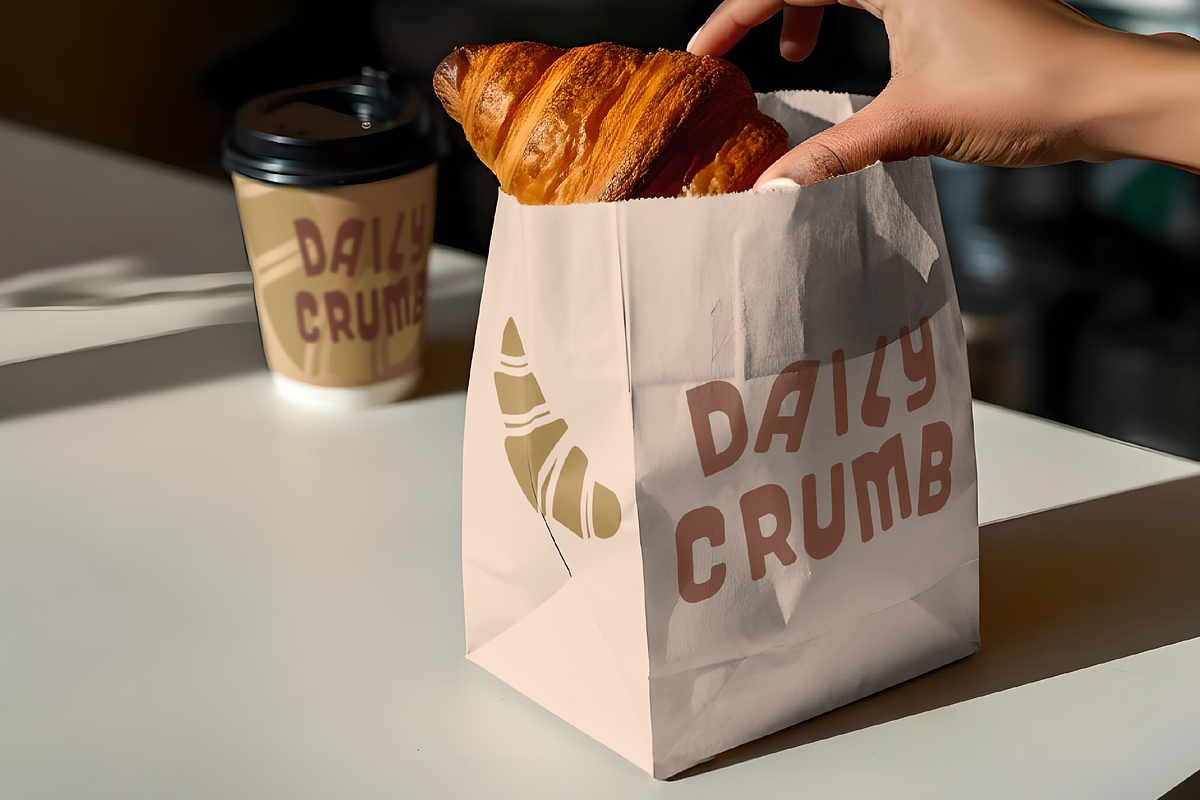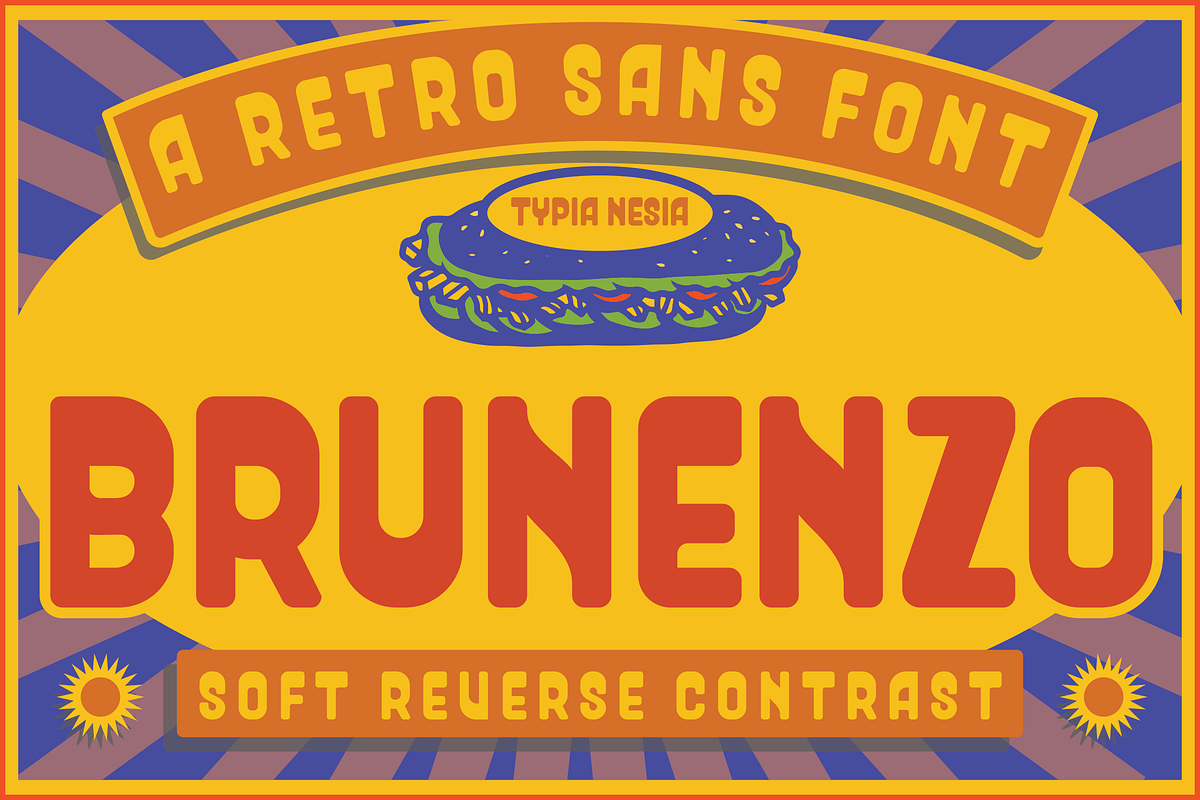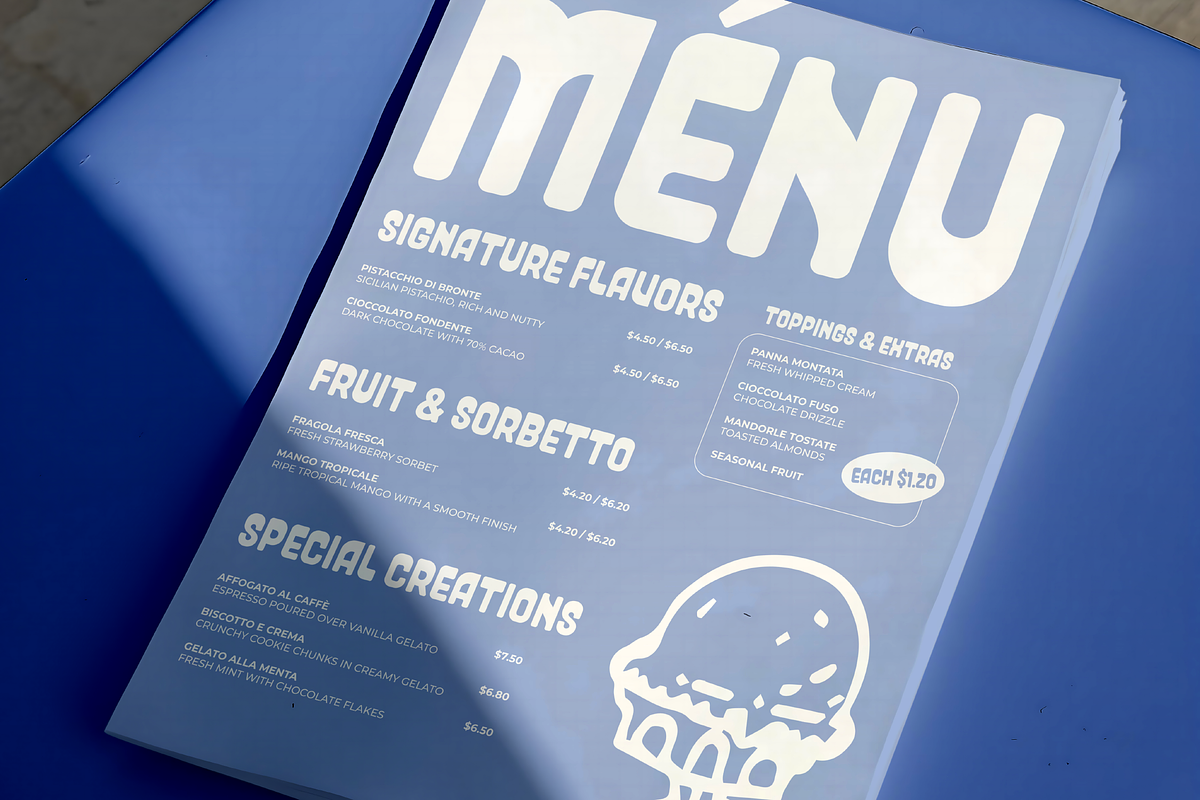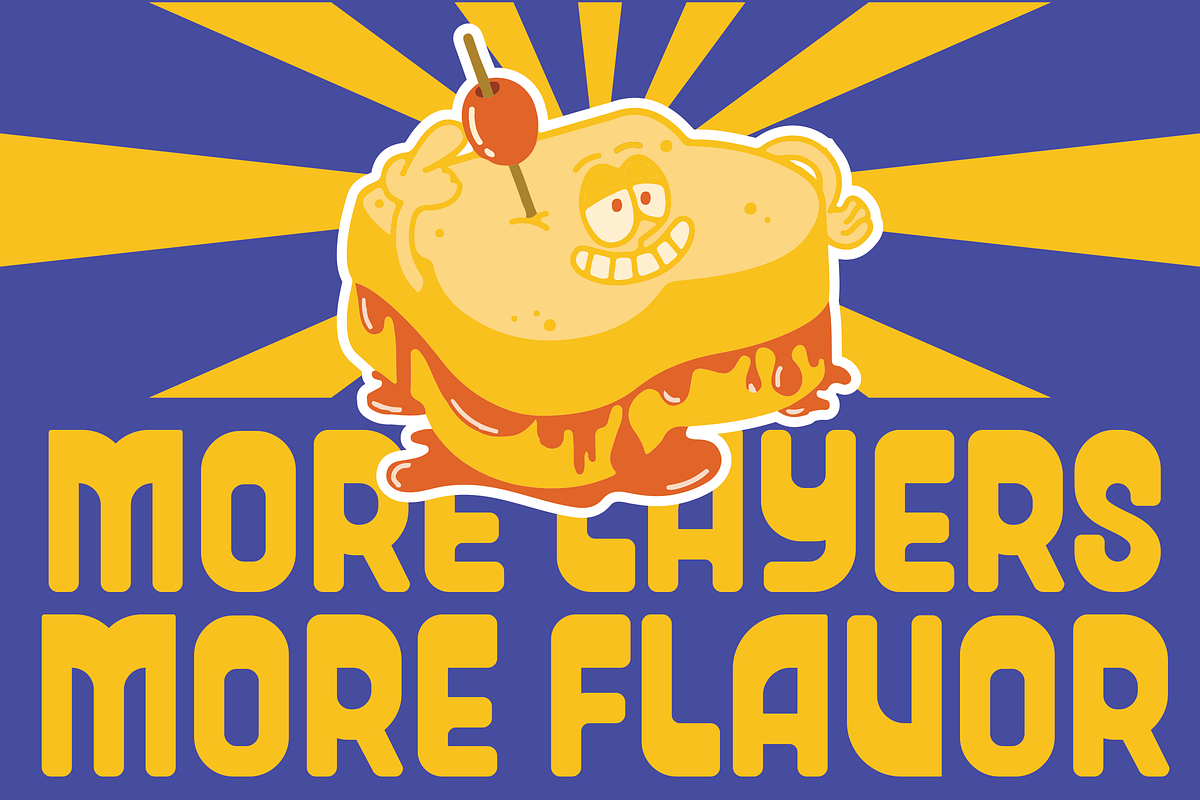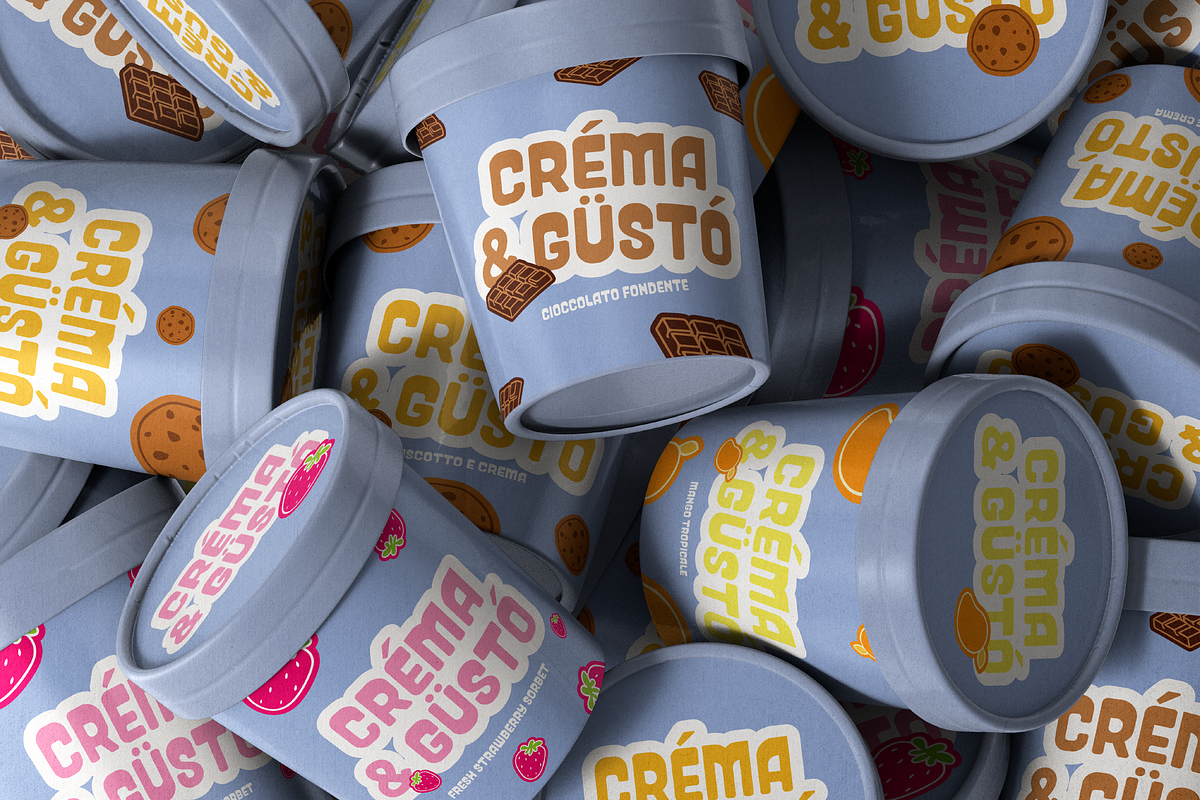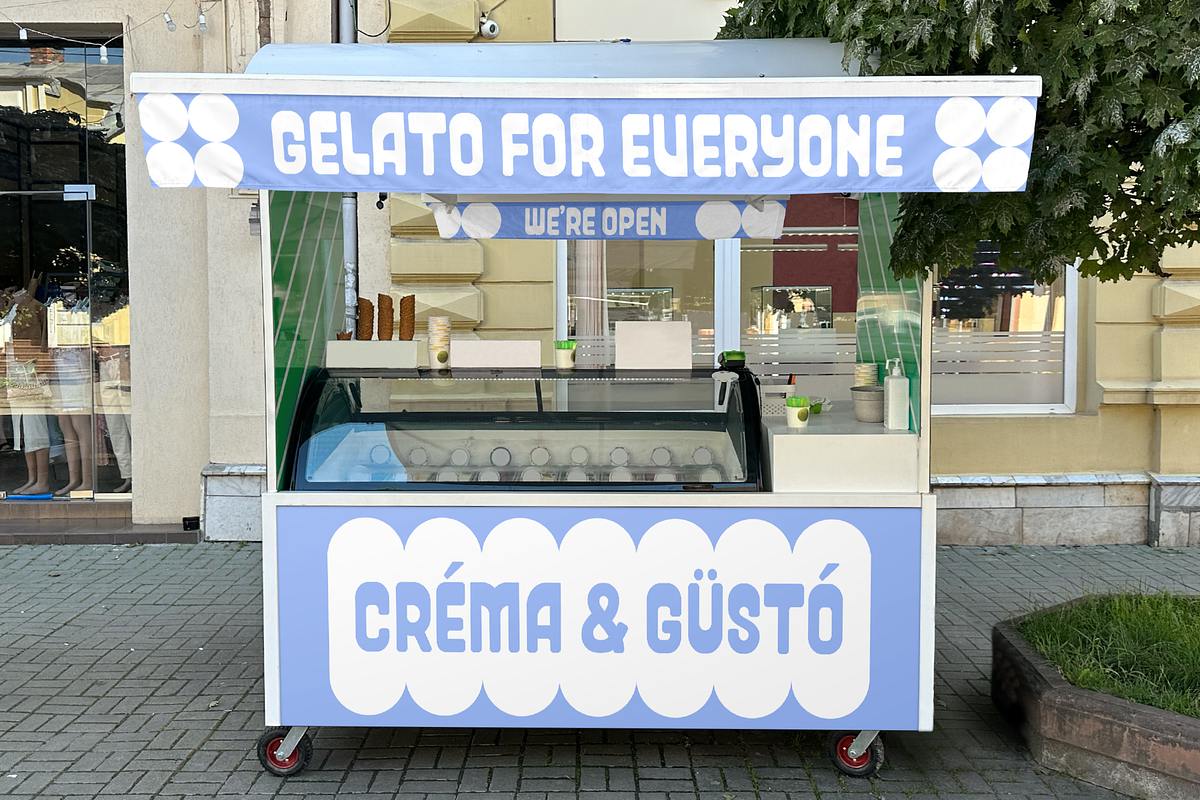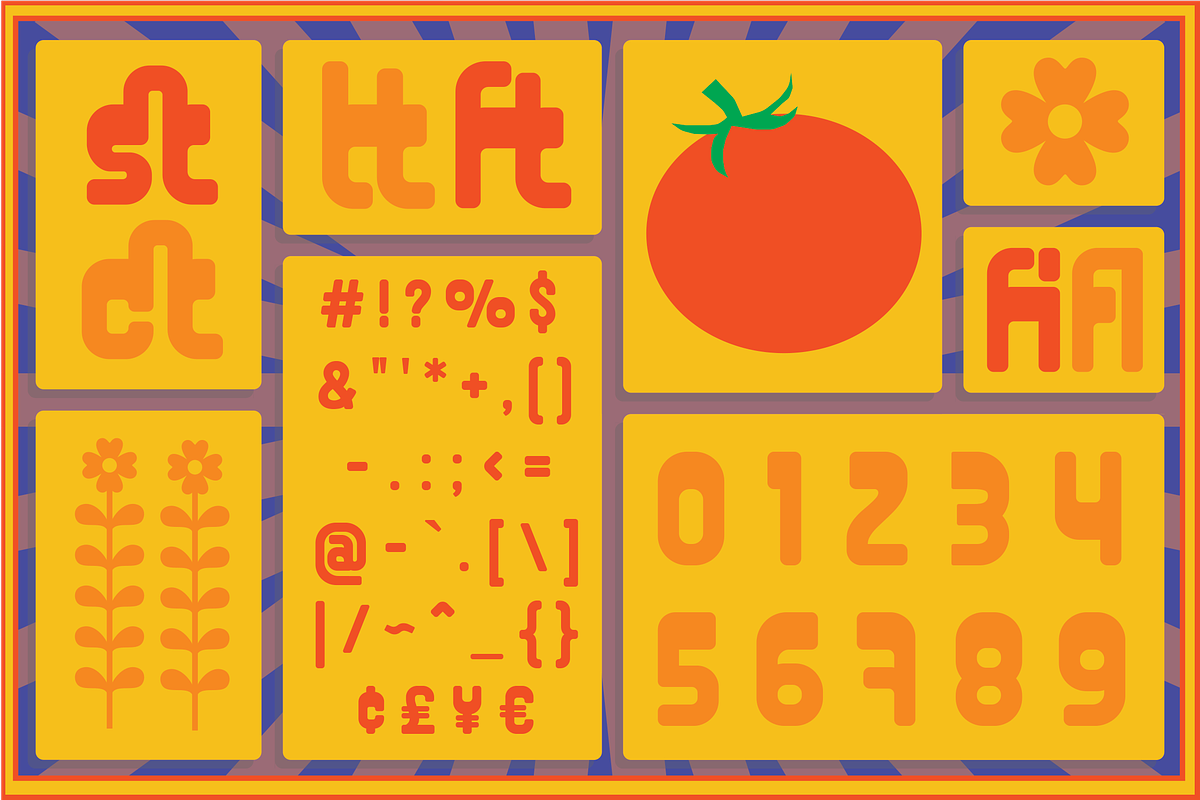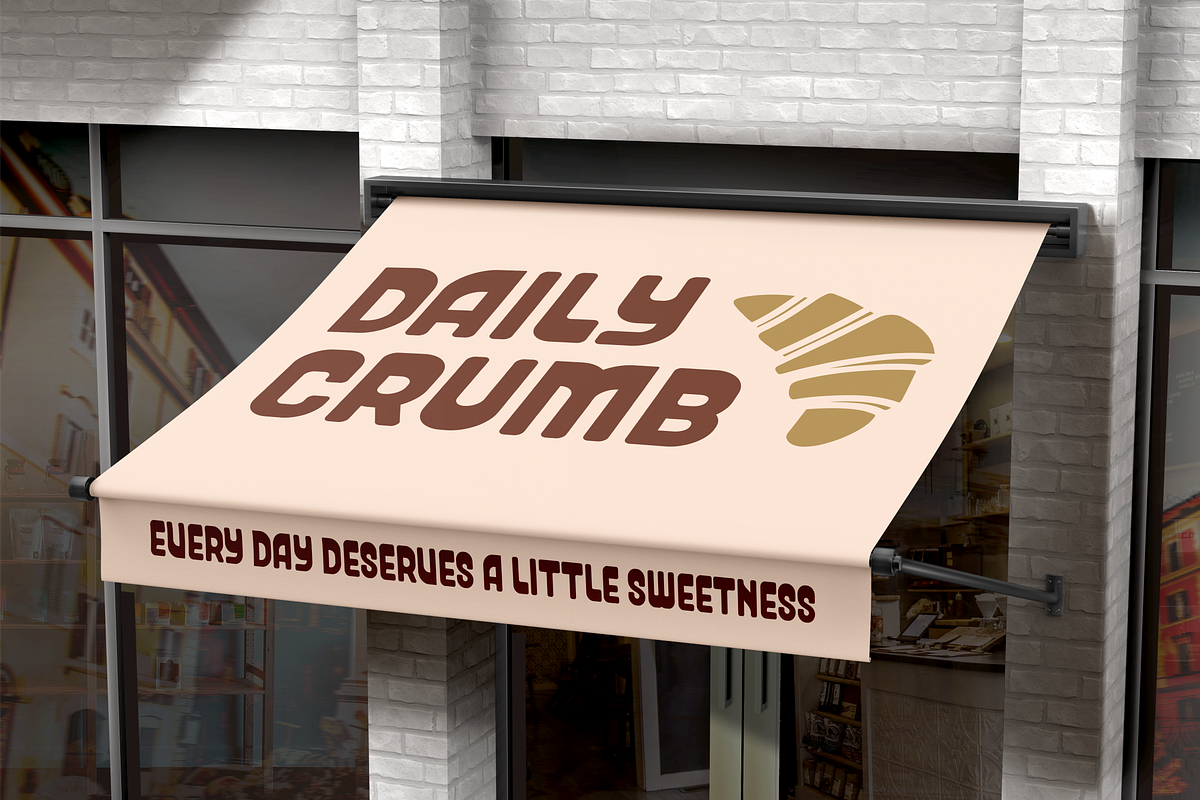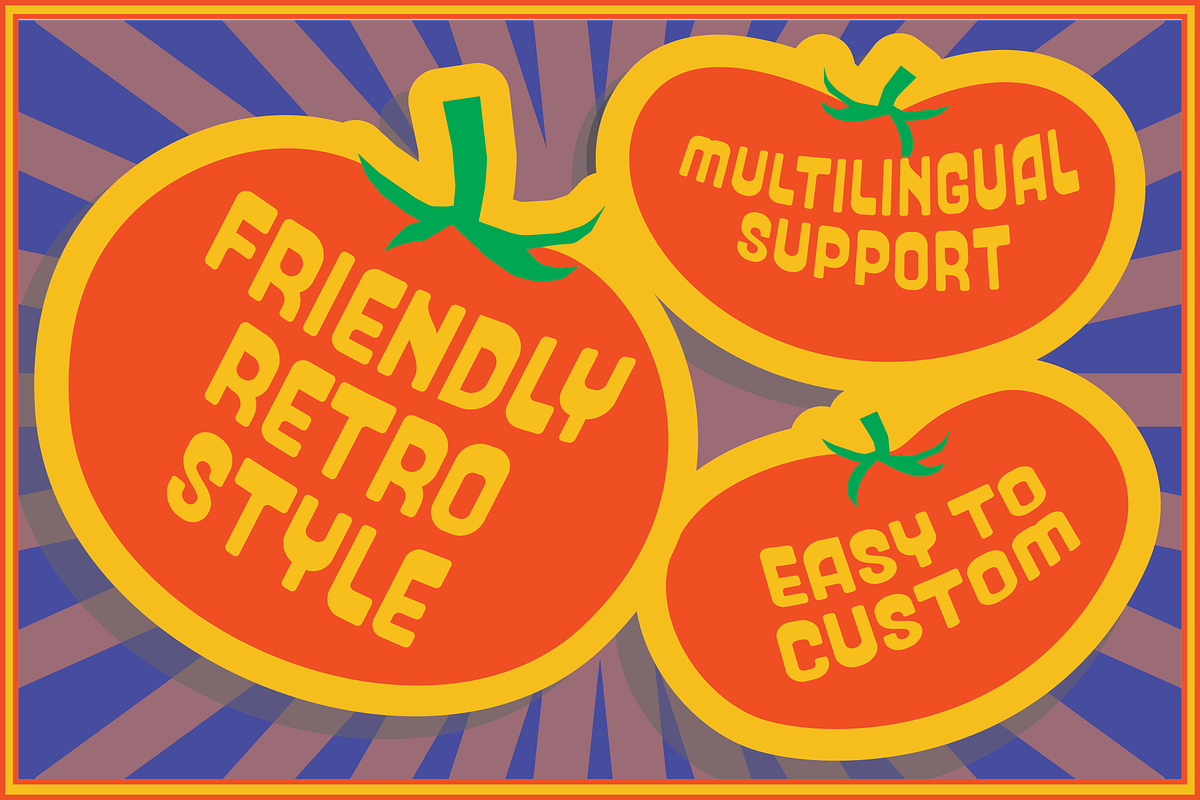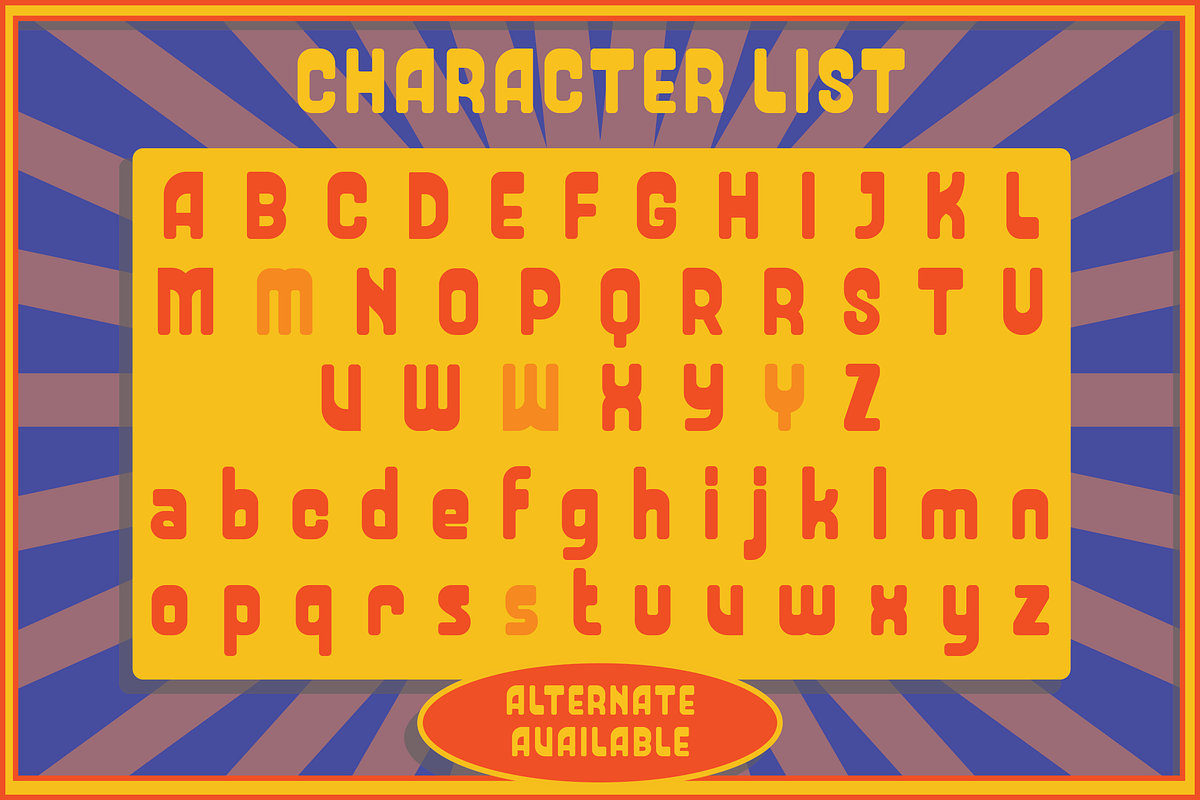
Brunenzo - Classic Retro Condensed
Brunenzo - Classic Retro Condensed Roudend Sans Font - Reverse Contrast Logo Display Font
Brunenzo is a Classic Retro Condensed Rounded Sans Font that captures the bold and playful groovy aesthetic of the 70s. With its distinct soft reverse contrast and chunky, rounded letterforms, this tall and condensed typeface is perfect for eye-catching display use. It's an ideal choice for branding, packaging, poster design, logos, bringing a fun, vintage vibe to projects in the food, game, cafe, and bakery industries and any projects that required a touch of modern and brings a fresh, retro feel. Comes with full character set, including ligatures and alternates, ensures versatility for headlines, titles, and display text.